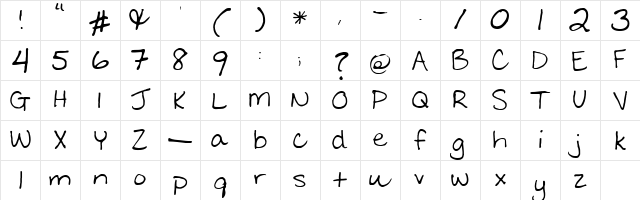
Leaf Queen Hand Regular
Foundry: Font Garden
Designer: Ellinor Rapp
Design Context for Leaf Queen Hand
Leaf Queen Hand flows with the natural rhythm of handwritten lettering, making it ideal for designs that call for warmth and personal expression.